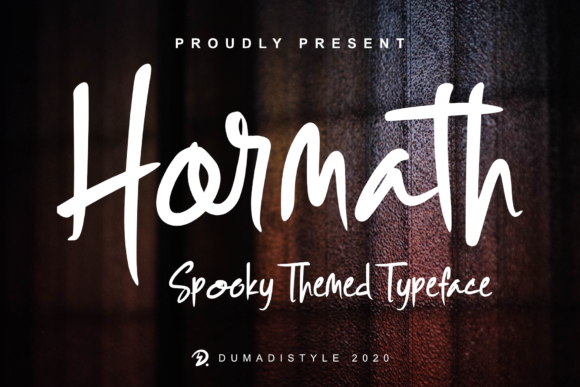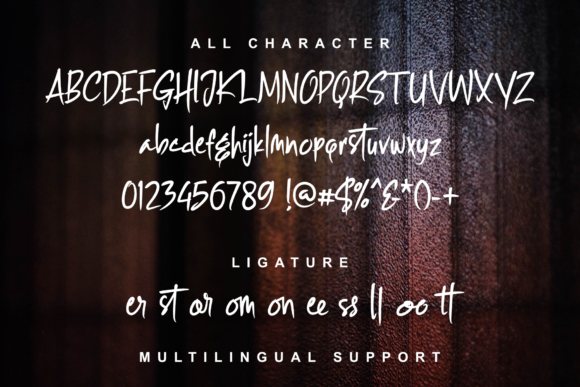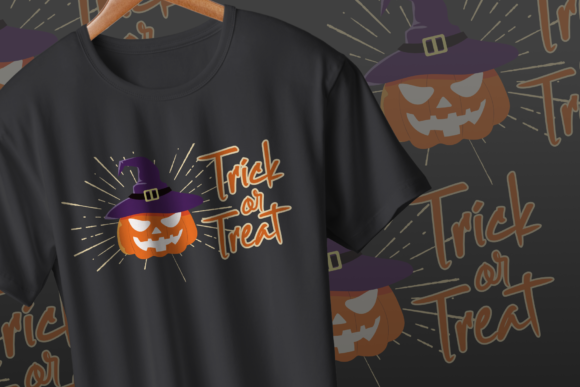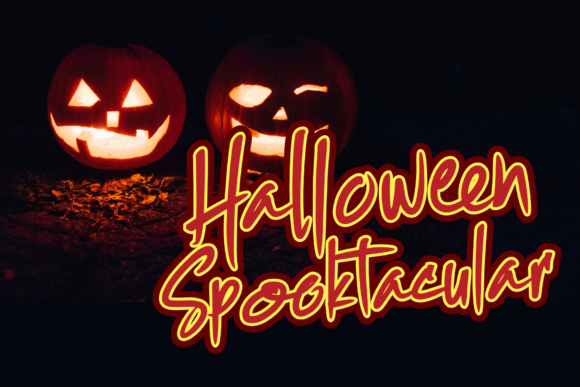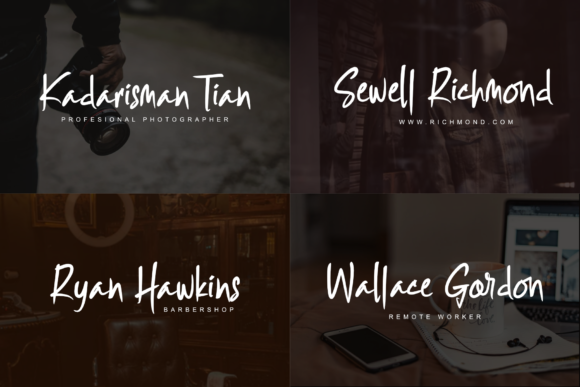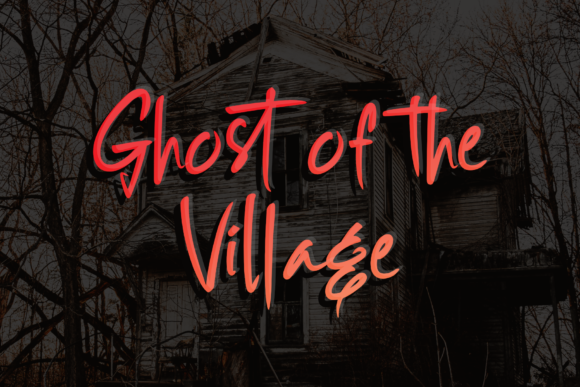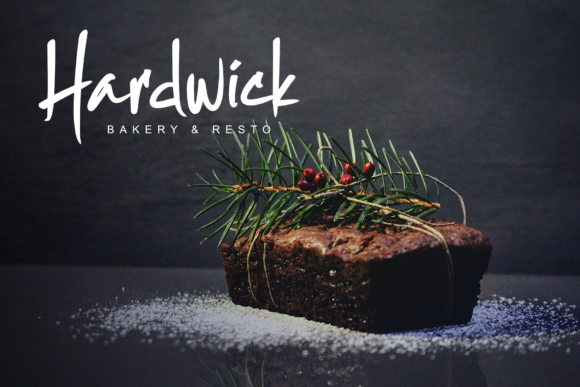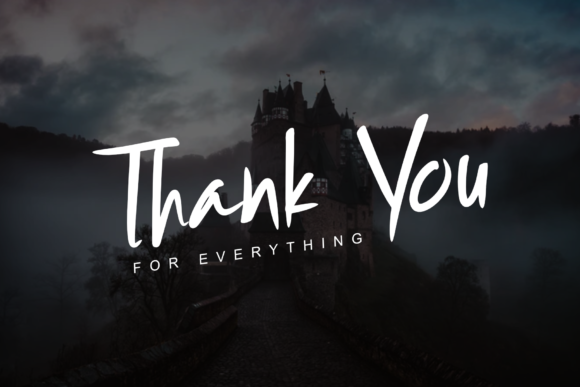
Hormath Font
About Hormath Font
Hormath is a lovely handwritten font, incredibly relaxed and unique. Fall in love with its incredibly versatile style and use it to create spectacular designs!